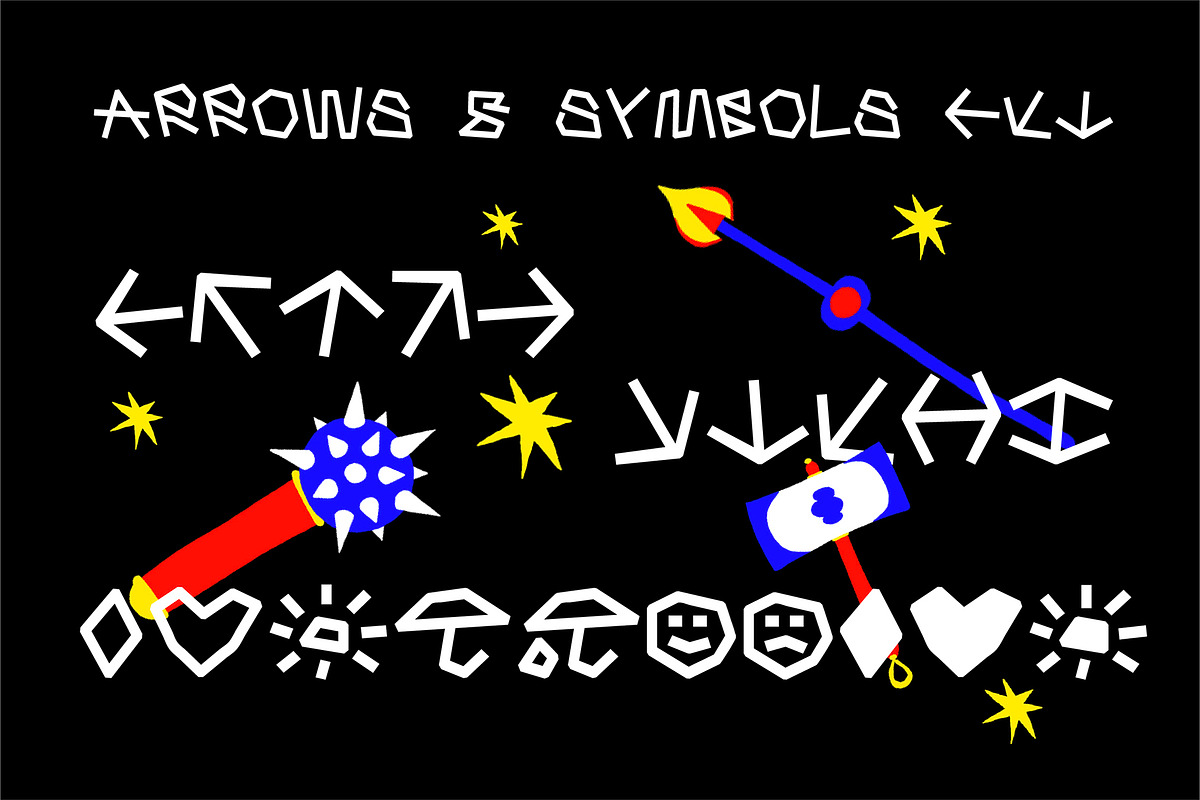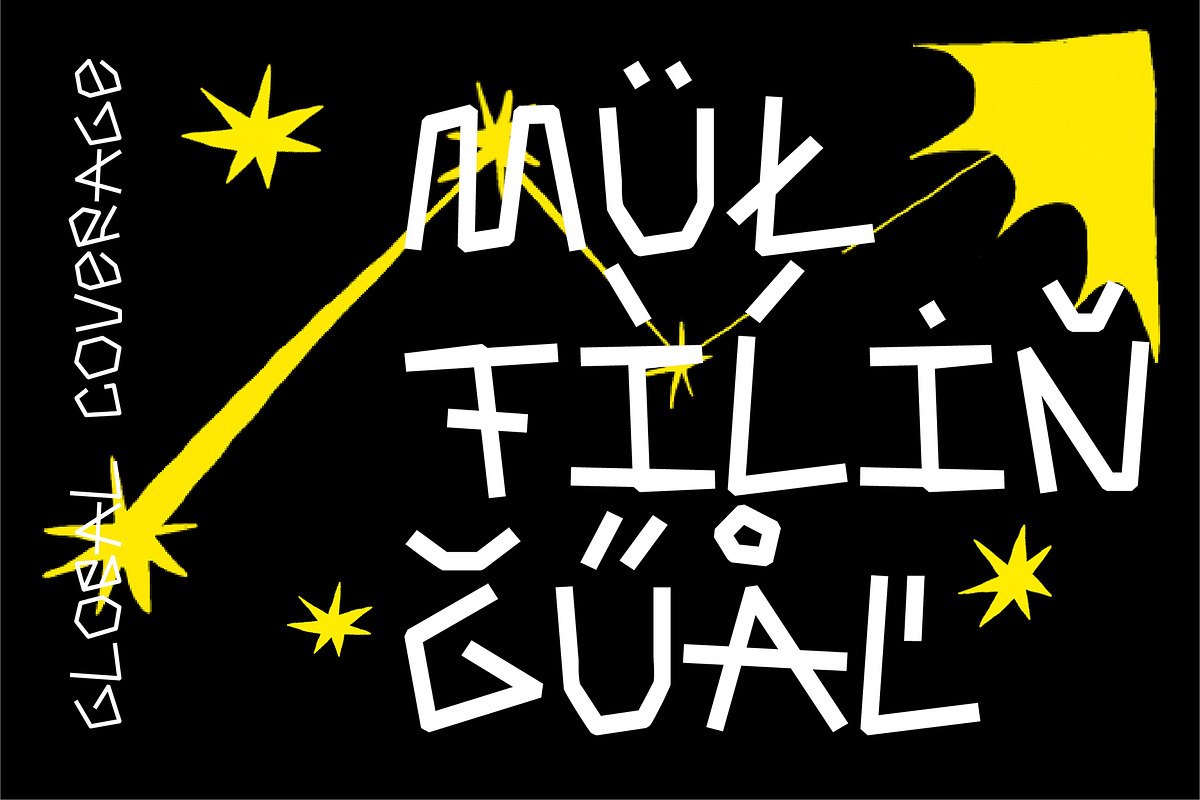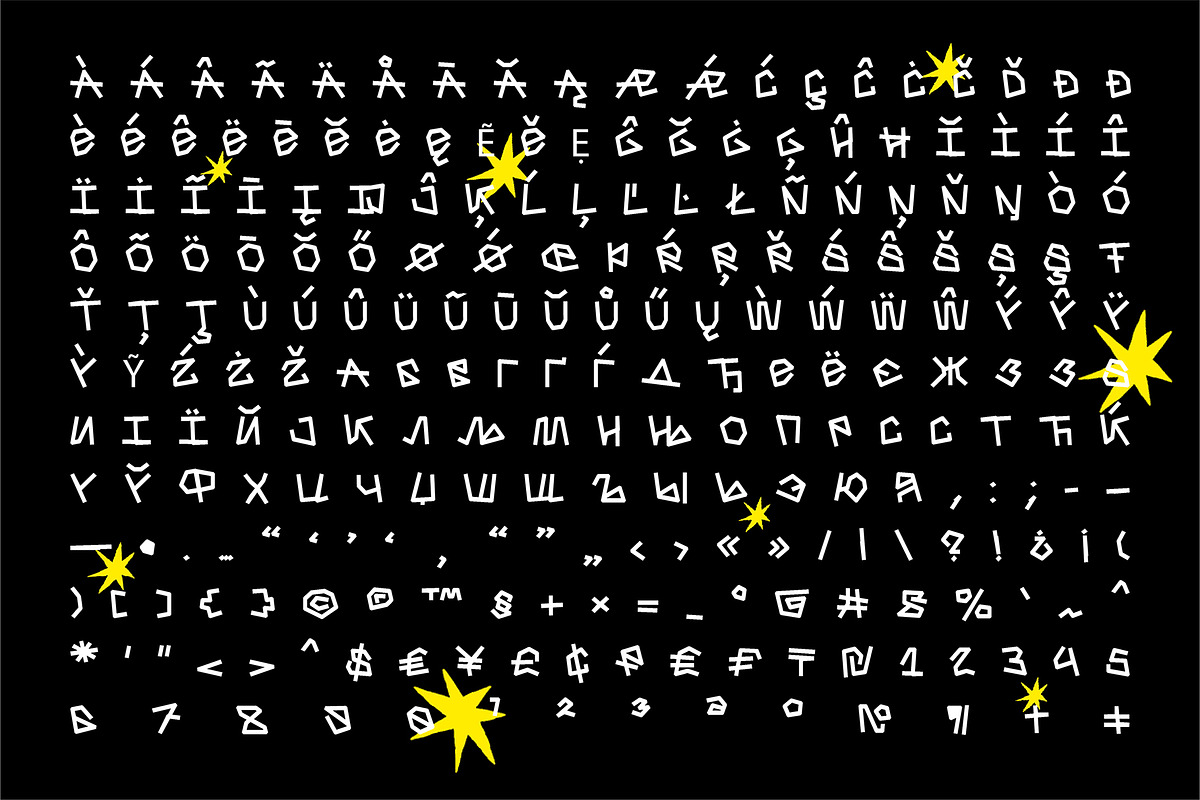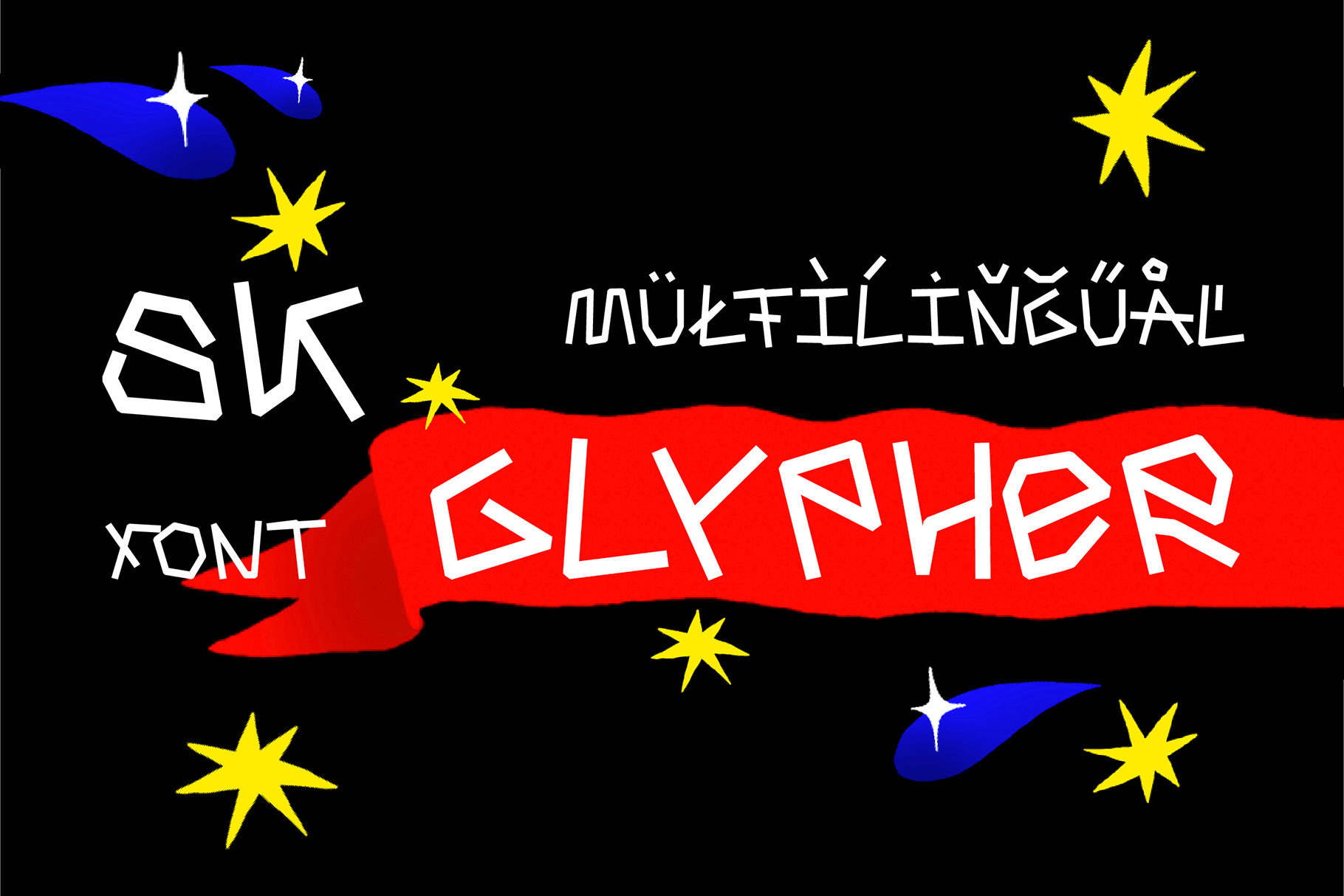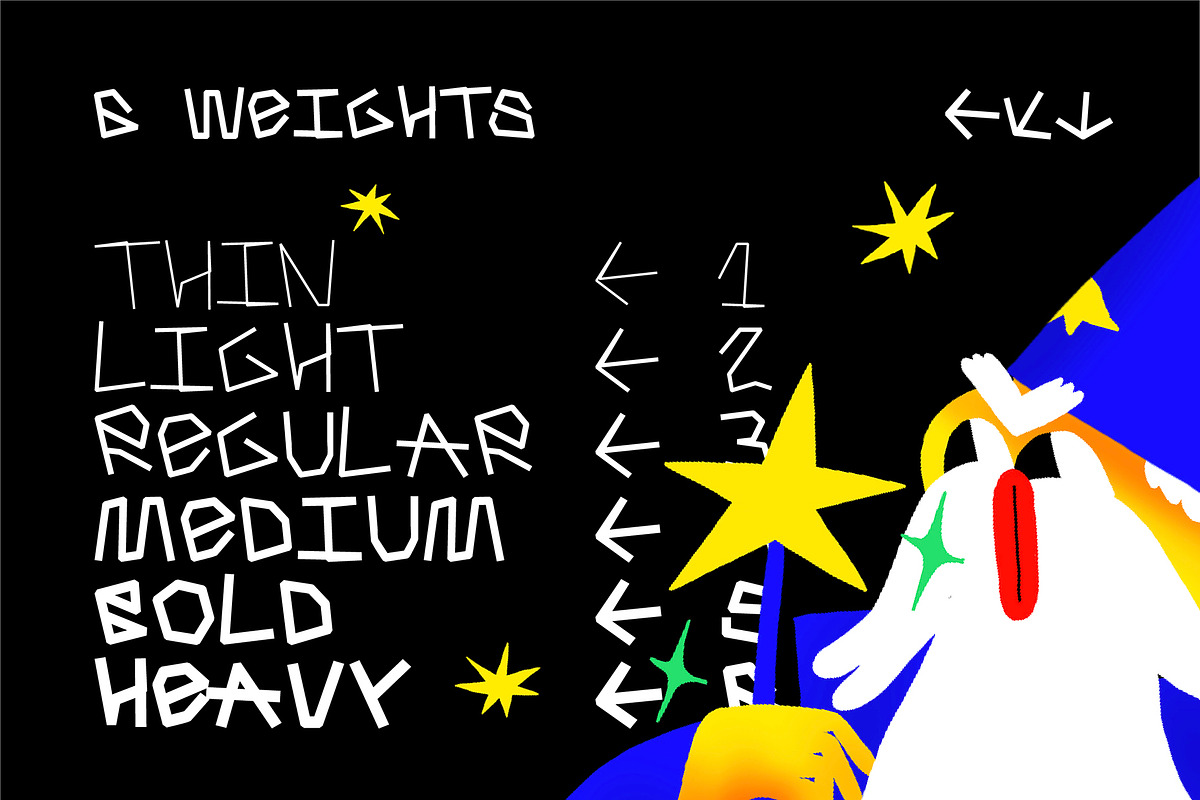
SK Glypher — Display Font
SK Glypher is a super experimental accidental typeface. It is designed under the impression of petroglyphs (ancient writing), which ancient people painted the walls of their caves. The angular and very unusual shape of the typeface allows you to create stunning typeface compositions based on it, which are suitable for both poster design and web design. The SK Glypher supports many languages and language groups: Latin Pro, which supports all 104 Latin languages, Cyrillic Pro, which is suitable for most Slavic languages, as well as the typeface supports Greek. As a nice bonus, the SK Glypher typeface has specially drawn icons and arrows that perfectly diversify the text.